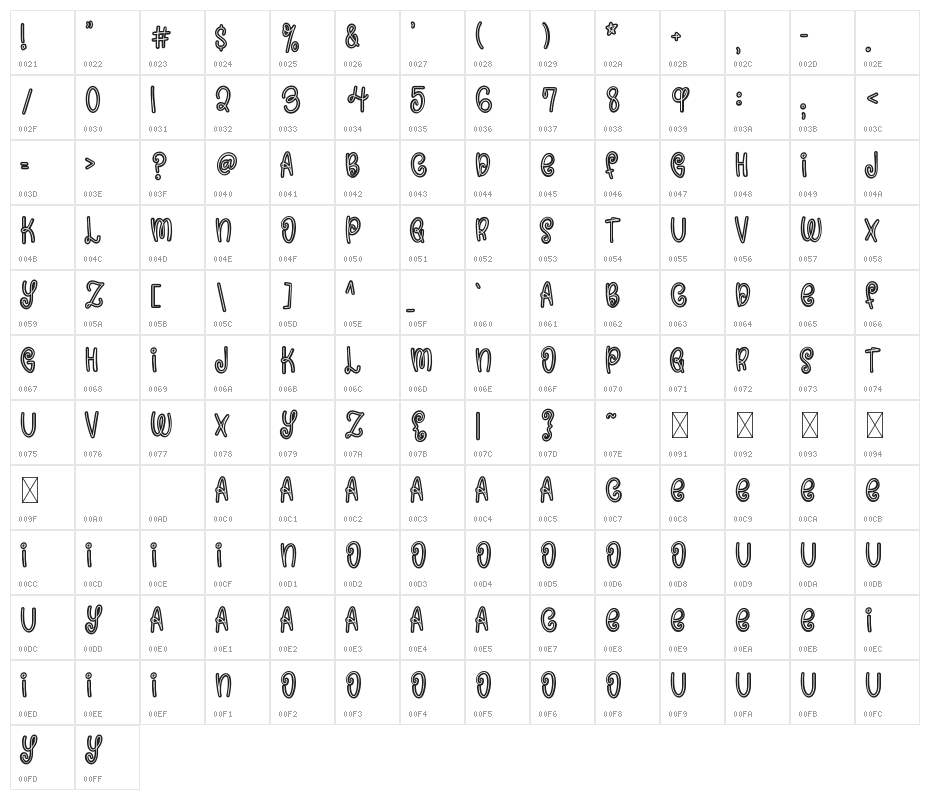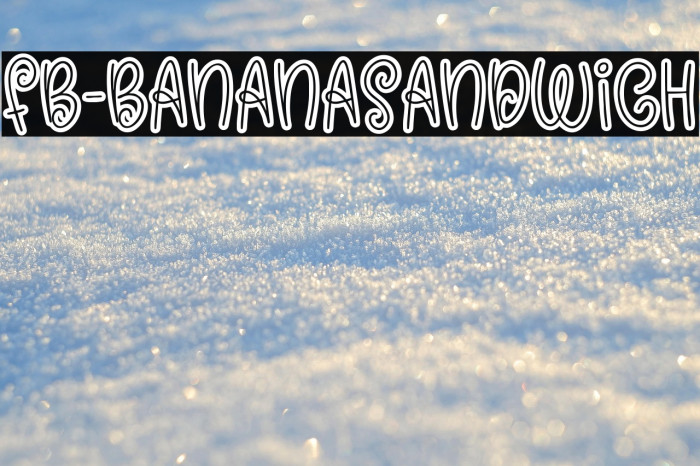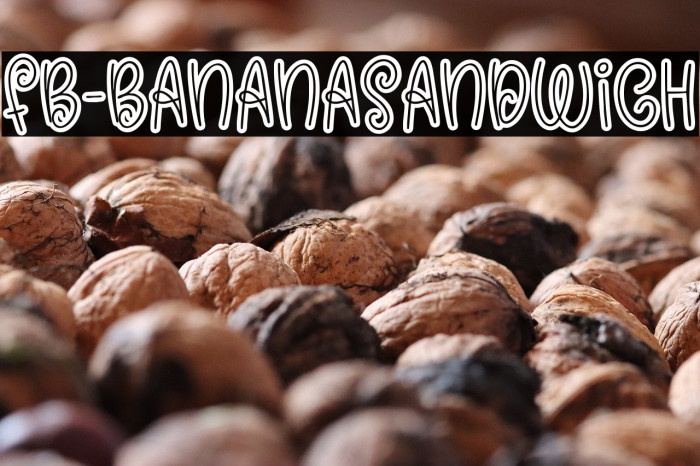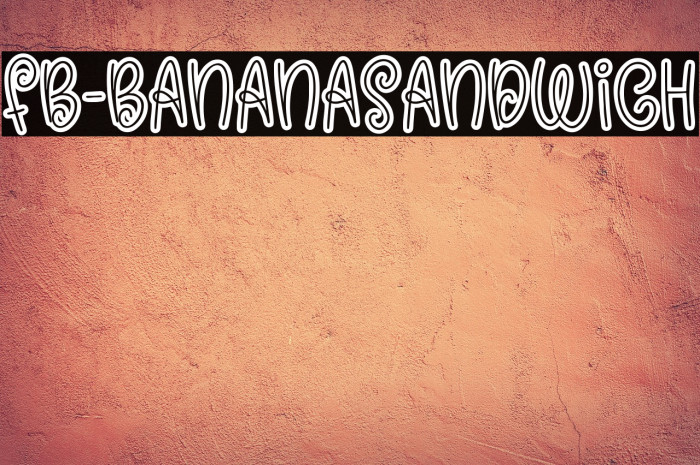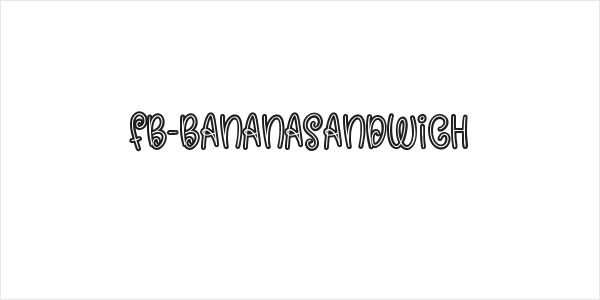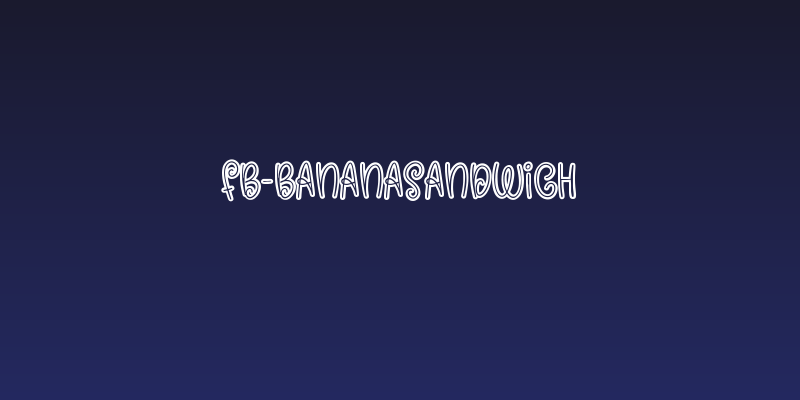
FB-BananaSandwich Font
FB-BananaSandwich Description
This playful and whimsical font features bold, rounded characters with a hand-drawn aesthetic. Each letter is outlined, creating a bubble-like appearance that adds a sense of fun and creativity. The uppercase and lowercase letters maintain a consistent style, with a slightly exaggerated, cartoonish flair. Numbers and special characters follow the same design, ensuring uniformity across all glyphs. The font's unique style makes it ideal for projects that require a touch of humor and lightheartedness, such as children's books, party invitations, or playful branding.
| Overall Style | Whimsical, Playful |
| Proposed Projects | Ideal for children's books, party invitations, playful branding, and creative posters. |